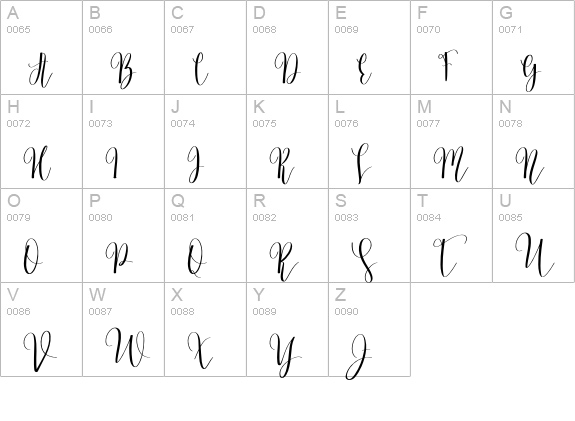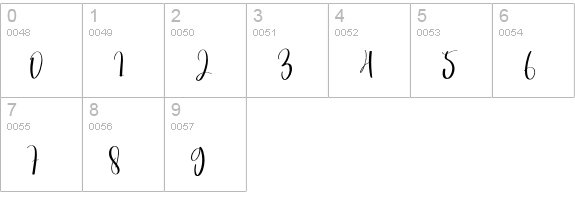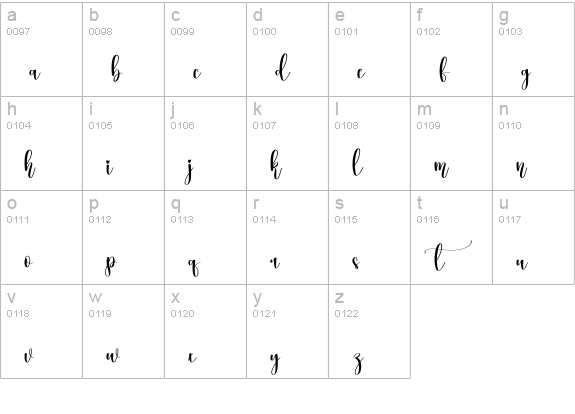
December Christmas Font Details
December Christmas is a free for personal use font in the Script > Handwritten category, designed by scratchones. It has been downloaded 11 times and is available for Windows, Mac and Linux.
The December Christmas font is a whimsical and festive typeface perfect for all your holiday design needs. With its charming and playful appearance, this font captures the joyful spirit of the Christmas season. The delicate swirls and decorative elements give a touch of elegance to any project, making it ideal for greeting cards, invitations, posters, and more.